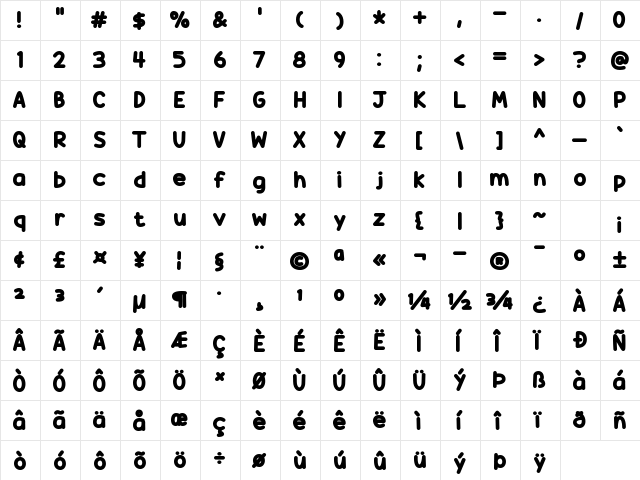
Candy Beans Regular
Design Context for Candy Beans Typeface
Candy Beans offers clean, dependable letterforms without strong stylistic allegiance, making it a practical choice for designers who need flexibility.
Pro Tip: Use Candy Beans in both headline and body roles to test its range before committing to a single application.